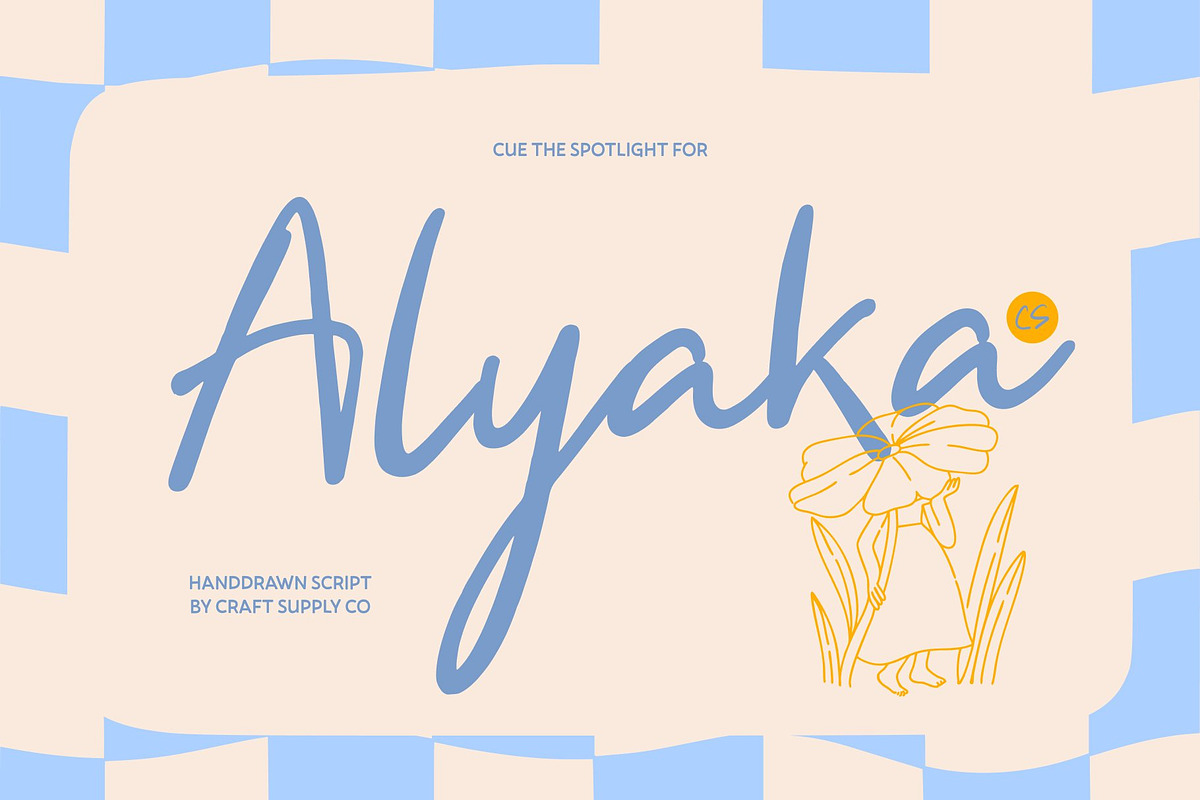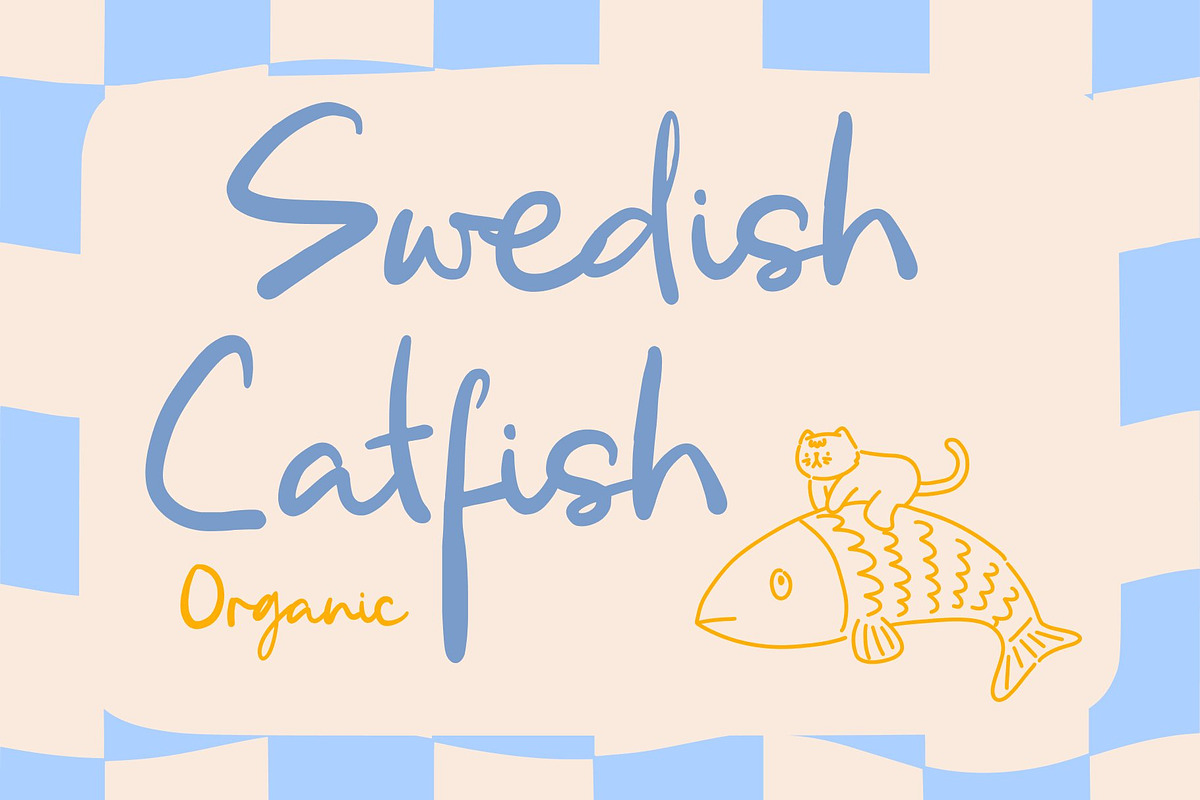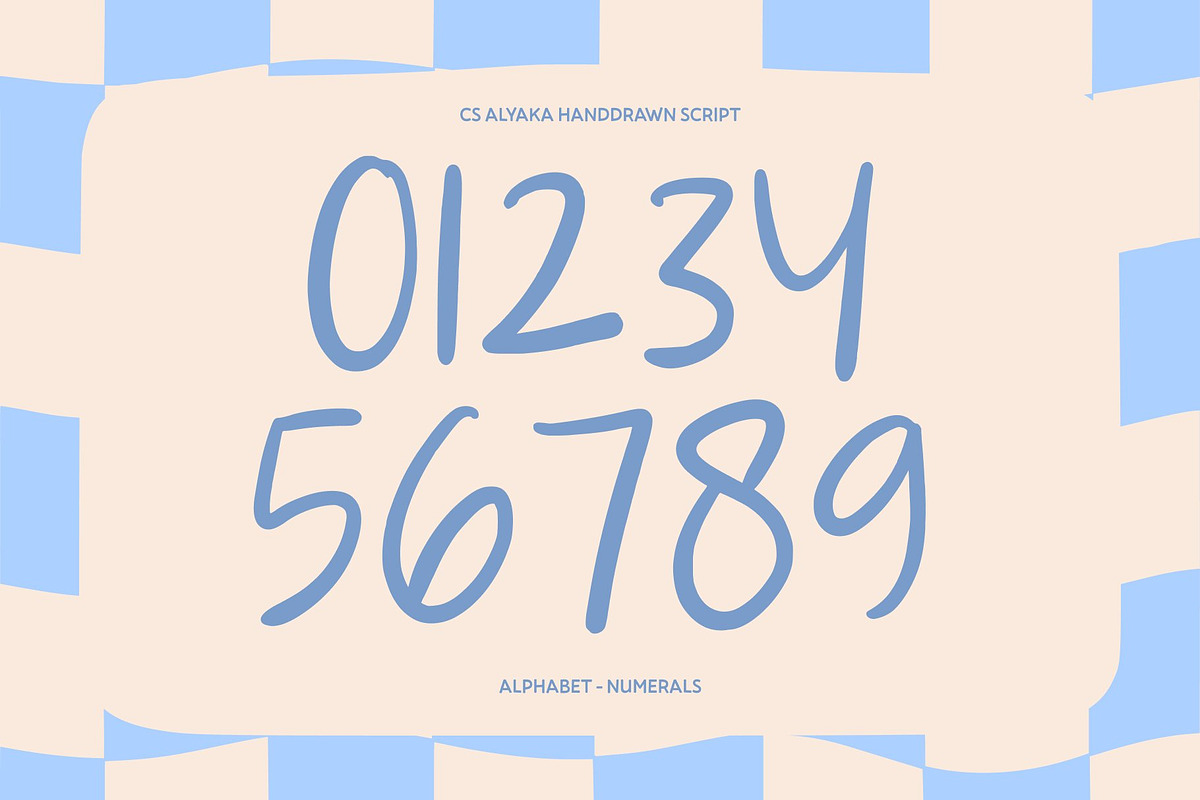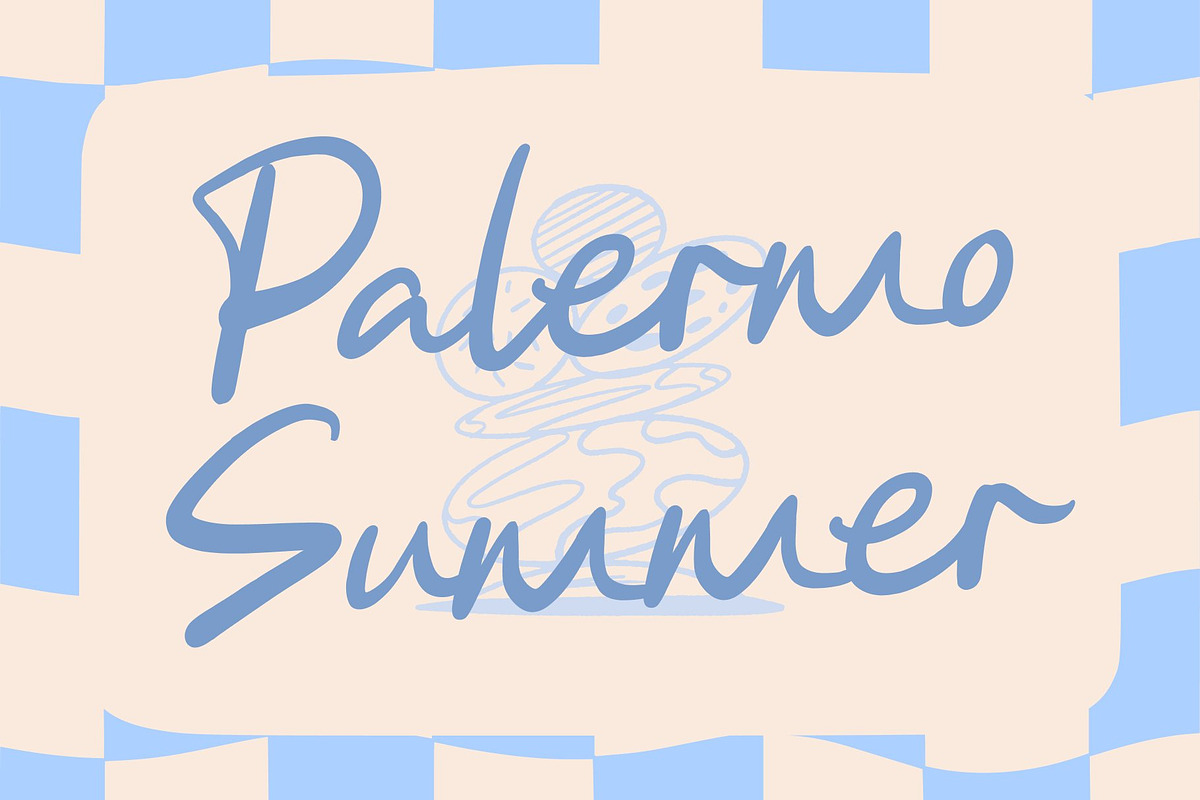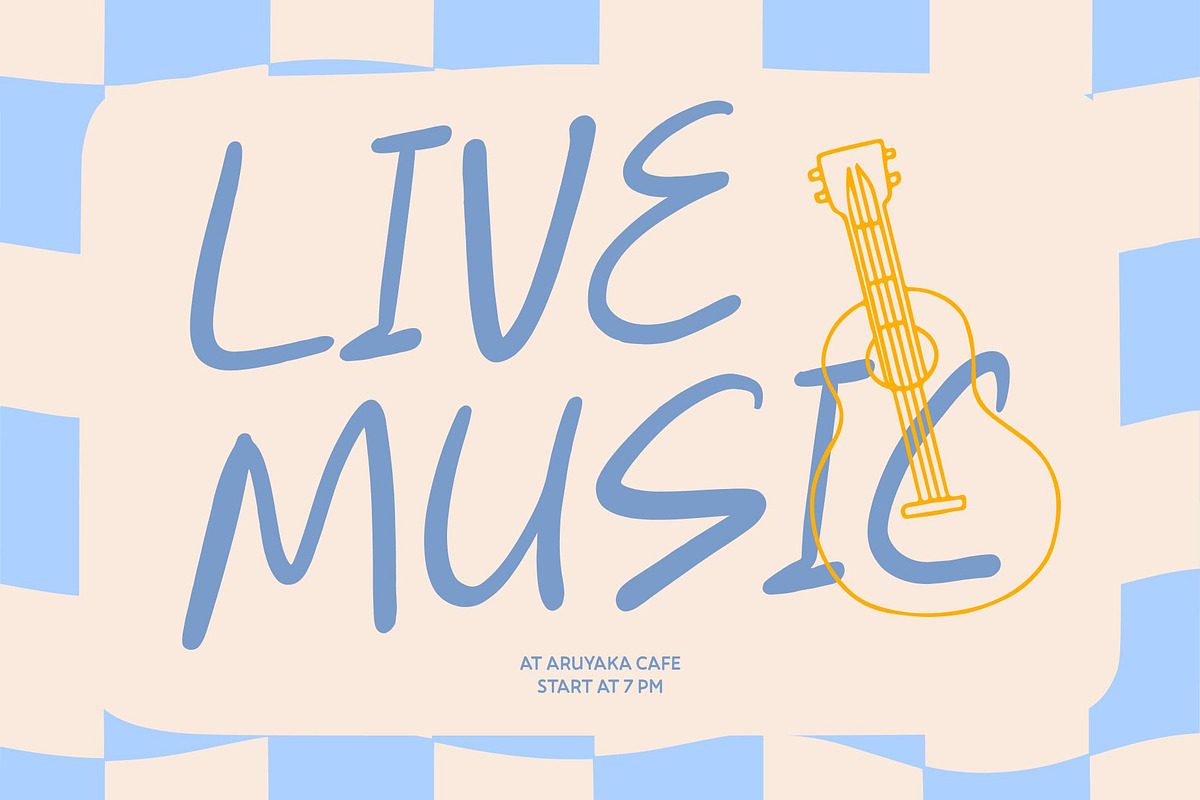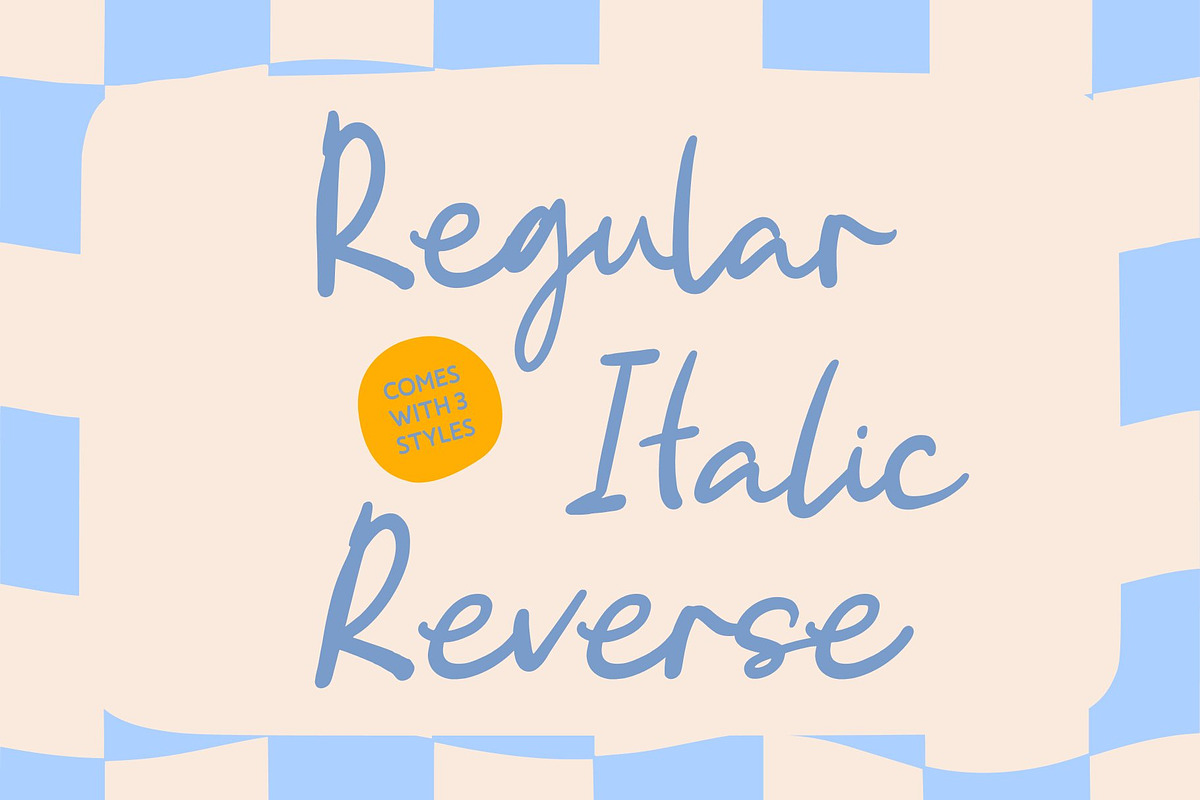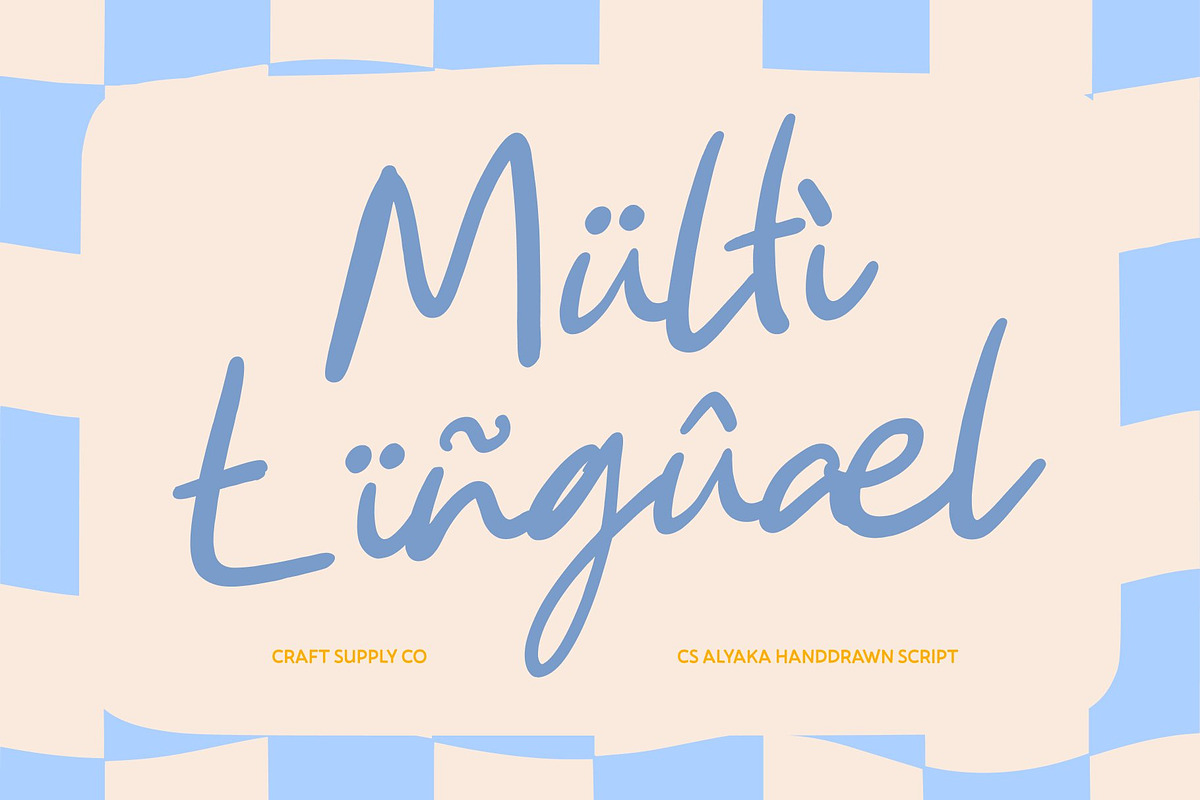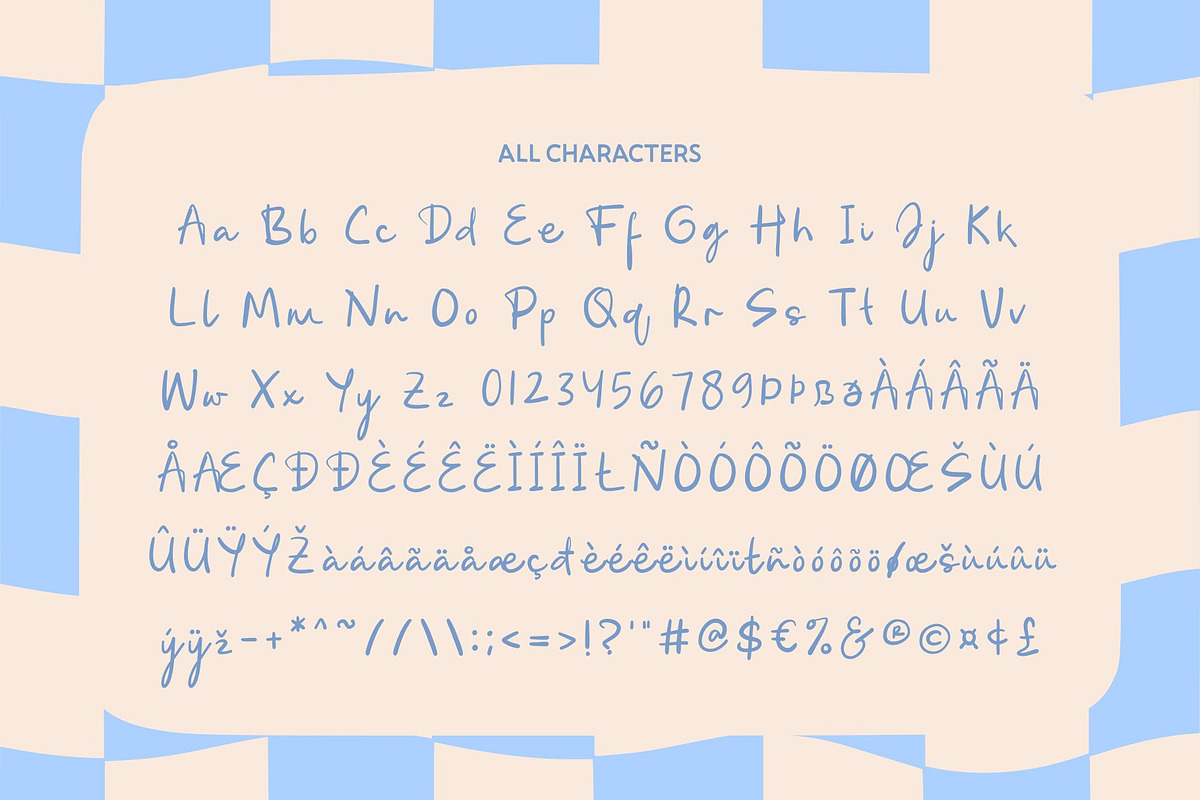
CS Alyaka – Handwritten Script
CS Alyaka – Authentic Handwritten Warmth with Personal Charm
Handwriting Script Font with Natural Pen Strokes This is a handwriting script font designed to capture the authenticity and warmth of natural pen strokes. Inspired by real handwritten movement, this font delivers a personal and expressive character that feels genuine and approachable. Each letter is shaped to reflect the fluid rhythm of handwriting, making an excellent choice for designs that value sincerity, creativity, and a human touch.
Organic Flow with Casual Personality The letterforms of this font feature smooth, organic curves and natural connections that enhance its handwritten realism. Subtle variations in stroke weight add depth and character, allowing the font to feel relaxed and unforced. This casual personality makes perfect for conveying friendly messages and emotional storytelling.
Personal Expression for Everyday Designs This font excels in projects that require a personal and informal tone. Its handwriting style brings warmth and charm to visual communication, helping designs feel inviting and relatable. Whether used as a main headline or a supporting accent, the font adds a sense of authenticity that strengthens emotional connection and creative expression.
Ideal for Greeting Cards, Invitations, and Casual Branding Designed for versatile and friendly applications, this font is ideal for greeting cards, invitations, casual branding, packaging, journals, and social media graphics. Its natural handwritten style works beautifully for personal events, small businesses, lifestyle brands, and creative projects.